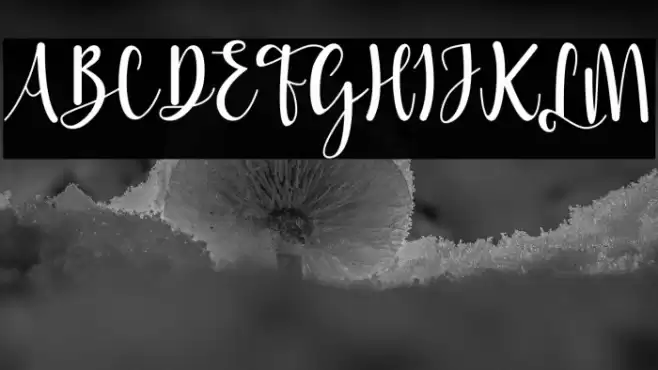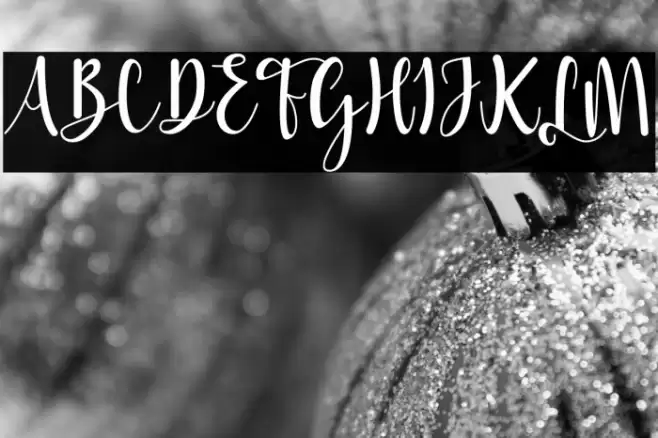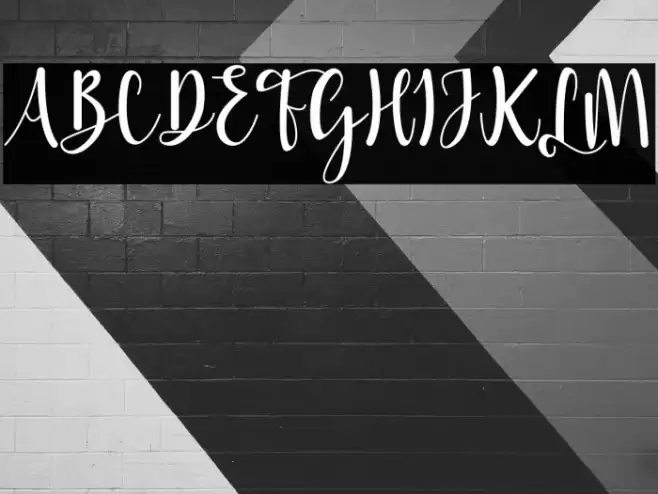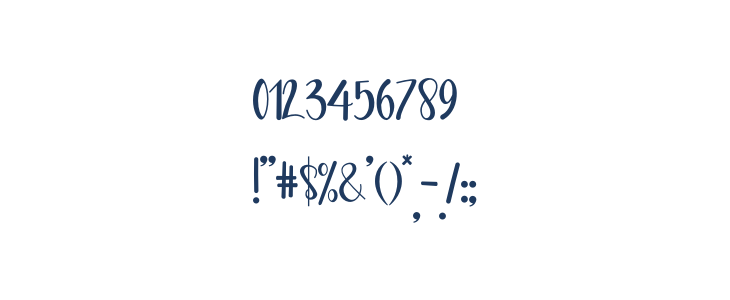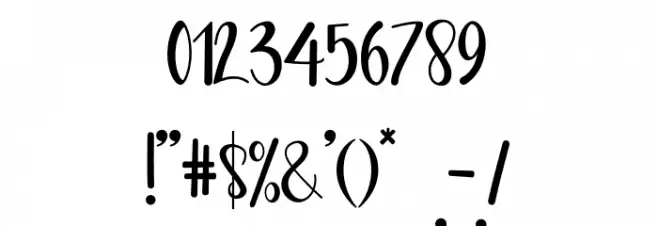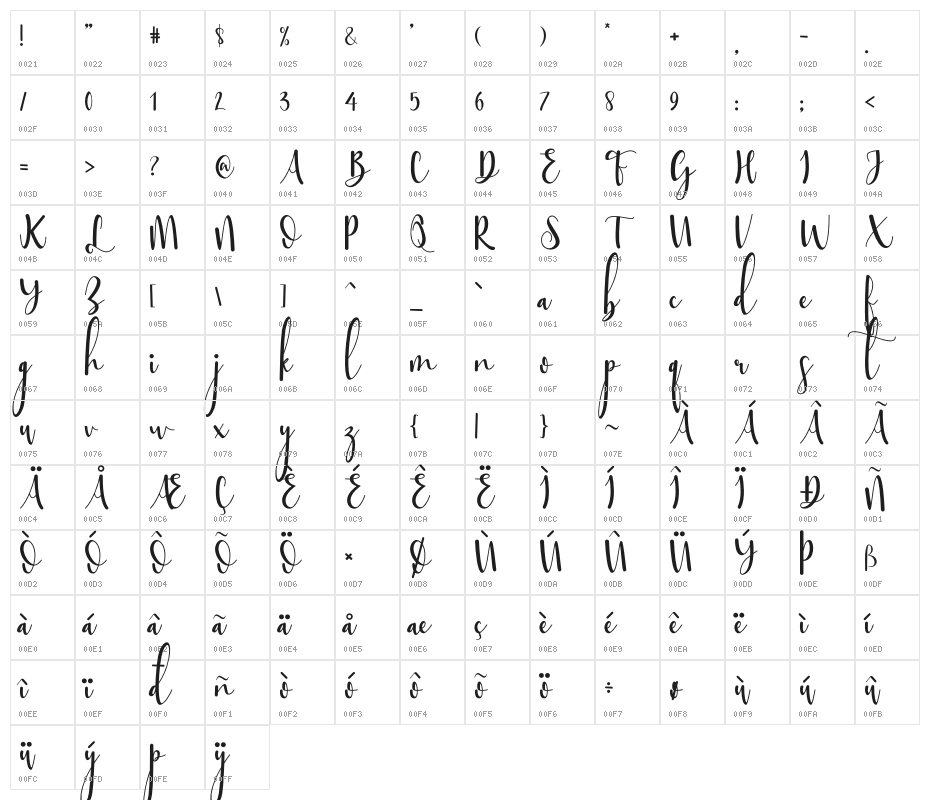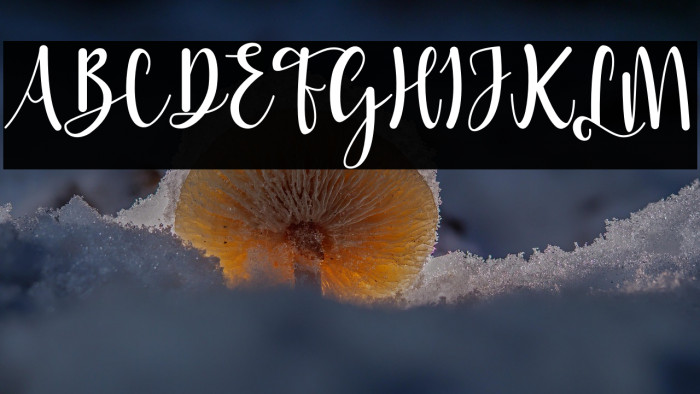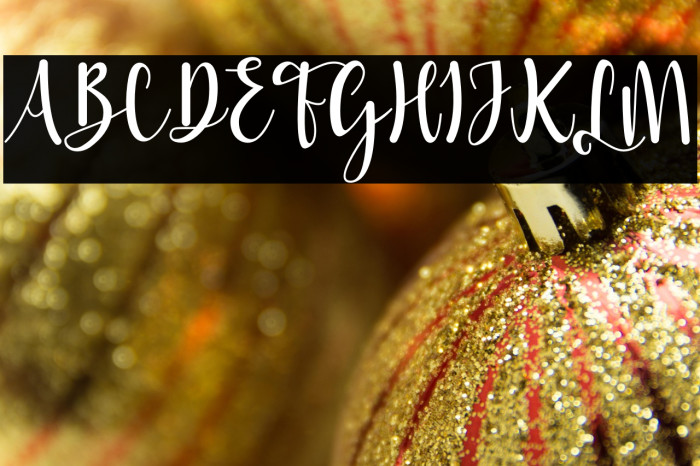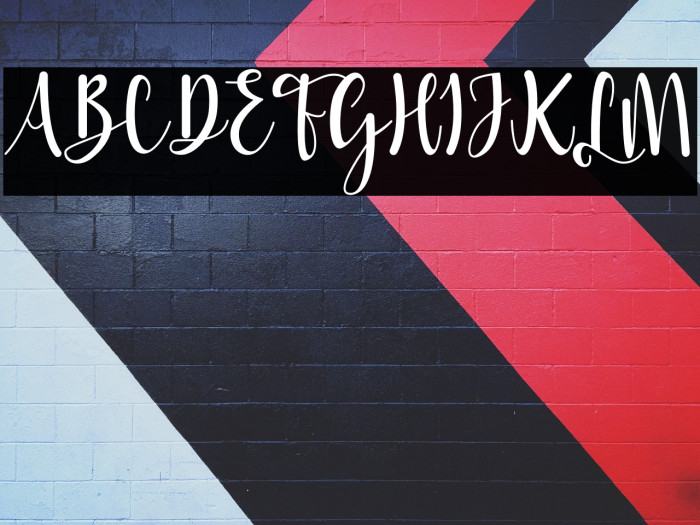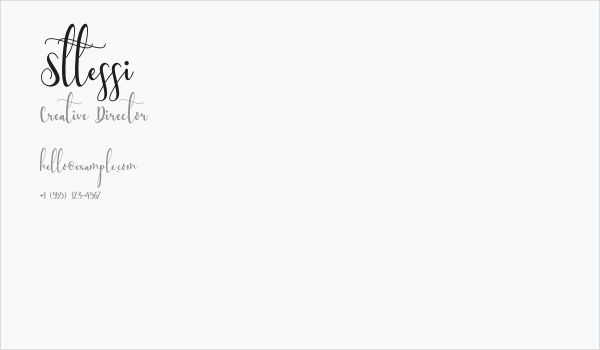
Sttessi Font
This font exhibits a lively and expressive script style, characterized by its flowing and interconnected letterforms. The uppercase letters are bold and dynamic, with a playful yet elegant flair, while the lowercase letters maintain a consistent rhythm and fluidity. The numerals are well-integrated into the overall design, offering a cohesive look. Special characters are creatively styled, adding to the font's versatility. The strokes vary in thickness, providing a moderate contrast that enhances readability without sacrificing the artistic quality. This font is ideal for projects that require a personal touch or a sense of creativity.
A lively and expressive script font with flowing, interconnected letterforms from Uncategorized fonts.
- Font: Sttessi
- Proposed Projects: Ideal for wedding invitations, greeting cards, branding, and creative projects that require a personal touch.
- Use Case: Logos, Invitations, Creative projects